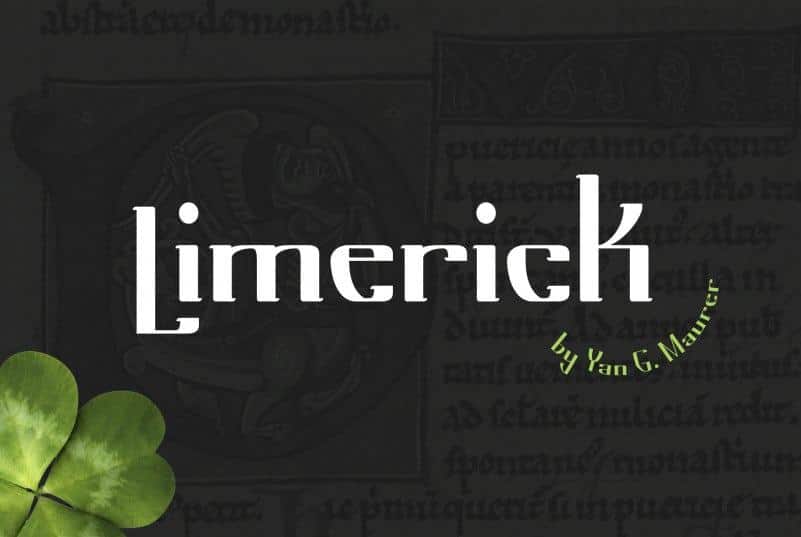
Limerick Serif Font is a serif typeface inspired by medieval Ireland. Unique and fashionable font, the straight lines combined with a slight curve that makes Limerick looks modern and pretty. Try uppercase for clean and elegant look. This is perfect for website header, logo, instagram story, or fashion related branding.